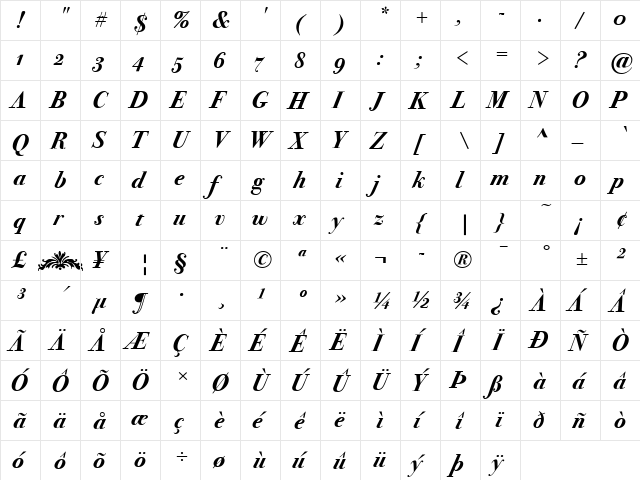
Bodoni Seventytwo ITC Bold Italic Font Preview
Design Context for Bodoni Seventytwo ITC Typeface
Bodoni Seventytwo ITC takes a measured approach to typography — its balanced proportions and neutral character make it a reliable workhorse for both digital and print work. The slanted form adds forward momentum and visual energy. The heavy weight commands attention and anchors typographic hierarchies.
Pro Tip: Try Bodoni Seventytwo ITC for annotation and caption copy alongside an upright companion — the contrast in angle creates a dynamic but ordered typographic system.